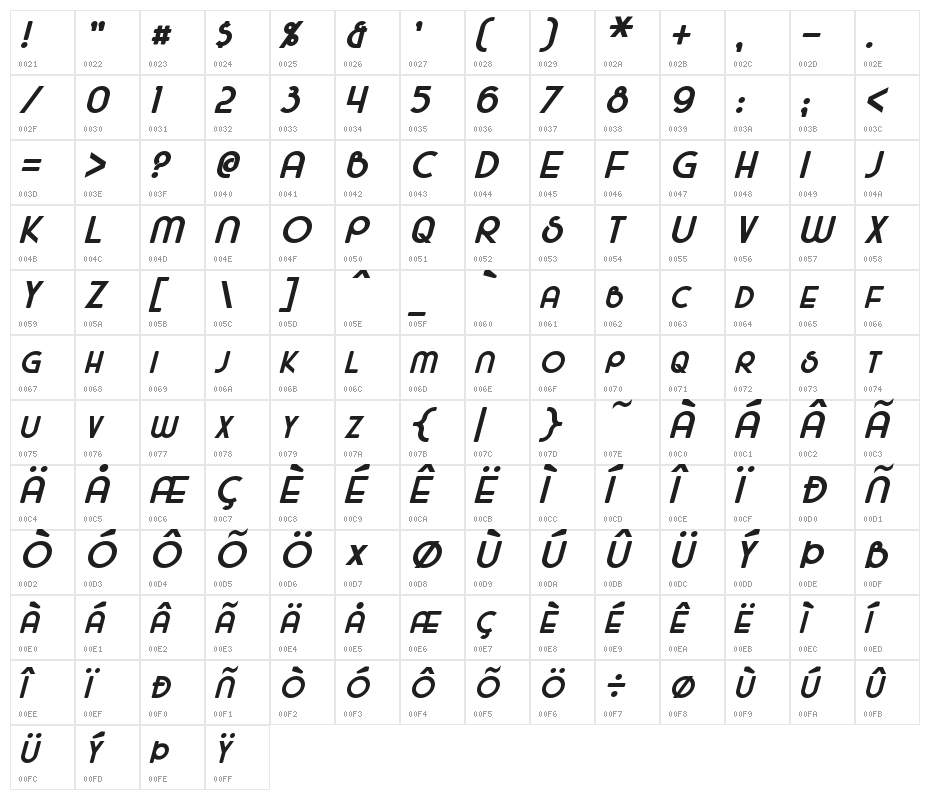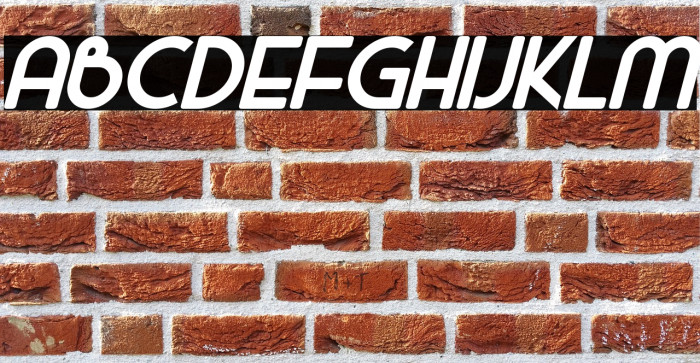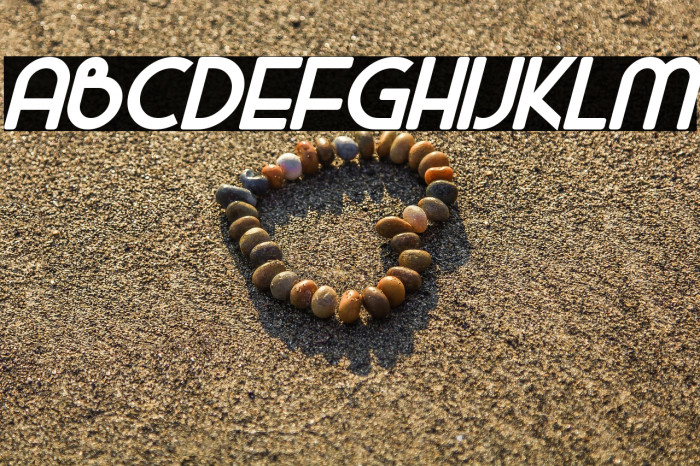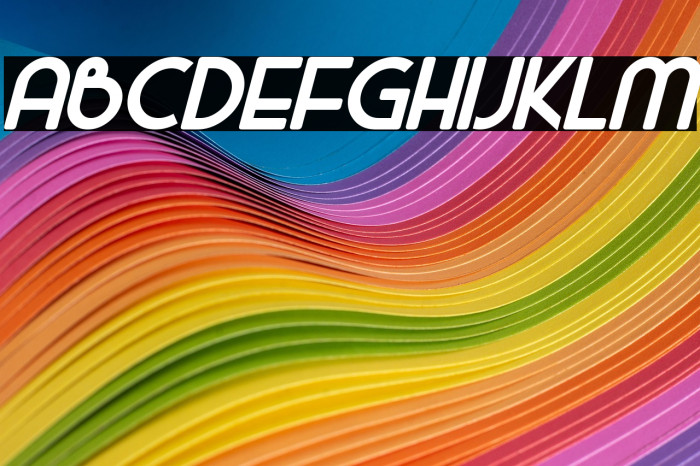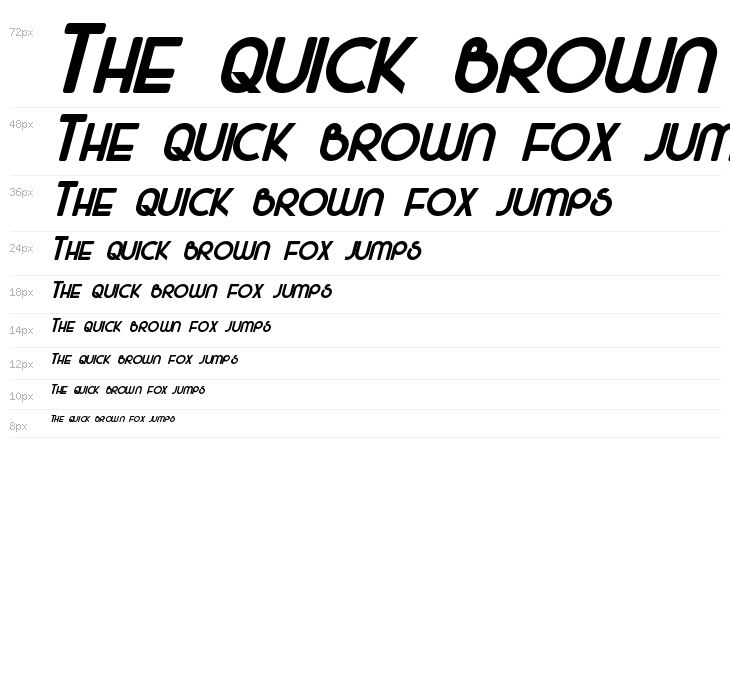
Majel Bold Font
Majel Bold Description
This font features a bold and dynamic style with a modern flair. The characters are slightly slanted, giving a sense of motion and energy. The strokes are thick and consistent, providing a strong visual impact. The rounded edges soften the overall appearance, making it approachable yet assertive. The uppercase and lowercase letters maintain a uniform width, contributing to a cohesive look. The numerals are clear and easy to read, while the special characters are well-integrated into the design. This font is versatile, suitable for a variety of applications where a bold statement is desired.
| Use Case | Headlines, Logos, Advertising |
| Proposed Projects | Ideal for branding, advertising, headlines, and digital media projects. |